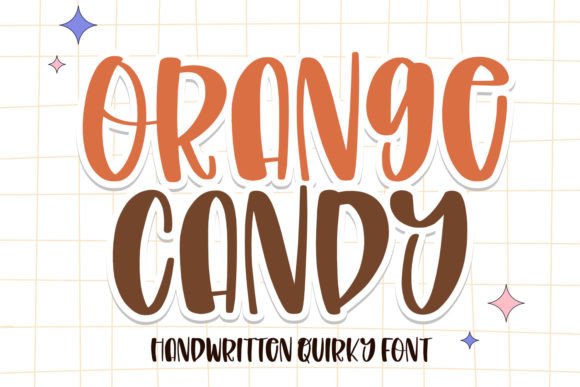
Step into a world of playful enchantment with Orange Candy Font, the ultimate choice for SVG designers seeking a whimsical and adorable touch. Crafted by the renowned Typefar, Orange Candy is a handwritten masterpiece that dances across the page with its charming and whimsical style.
This delightful script font captures the essence of cuteness, transforming your designs into captivating works of art. Its playful personality adds a touch of joy and whimsy, making it the perfect choice for projects that demand a cheerful and charming aesthetic.
Dive into the world of Orange Candy Font and discover a treasure trove of creative possibilities. Its versatility knows no bounds, lending its magic to a kaleidoscope of projects, from cheerful SVG designs to vibrant logos and eye-catching posters. Unleash your imagination and let Orange Candy Font ignite your creative spark.
Indulge in the delightful world of Orange Candy Font and let its magic transform your designs into captivating masterpieces. Embrace the joy and whimsy of this charming script, and watch as your projects blossom with creativity and enchantment.